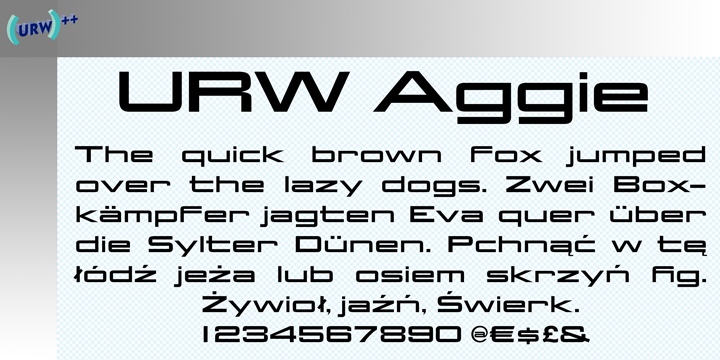
Aggie Font
Aggie Font is perfect for agricultural company branding, farm-to-table restaurant menus, organic product packaging, rural lifestyle magazines, farming equipment marketing, agricultural education materials, farmers market signage, sustainable agriculture campaigns, country fair promotions, and agricultural cooperative communications.
What makes Aggie Font so exciting is its authentic rural charm and down-to-earth character that perfectly captures the honest, hardworking spirit of agricultural communities through sturdy letterforms that feel as reliable and trustworthy as the farmers who feed our communities. This typeface embodies the essence of agricultural heritage through its solid construction and approachable personality that immediately communicates authenticity, tradition, and connection to the land. The font's compelling appeal stems from its ability to convey genuine farming values, rural authenticity, and agricultural expertise while maintaining professional quality for modern agricultural business applications.
Aggie Font comes in multiple weights and styles including Light, Regular, Medium, Bold, and Condensed variations, along with agriculture-themed icons, farm symbols, and rural decorative elements that provide comprehensive design solutions for complete agricultural brand systems.
Agricultural industry professionals and rural businesses consistently choose Aggie Font for projects requiring authentic farming appeal and agricultural community positioning. Its honest styling makes it particularly effective for farms, agricultural cooperatives, rural businesses, and farm-to-table enterprises seeking to communicate tradition, reliability, and connection to agricultural heritage. The font's trustworthy personality and agricultural authenticity create immediate connection with rural audiences while communicating values of hard work, sustainability, and community that are essential for success in agricultural markets and rural business environments.